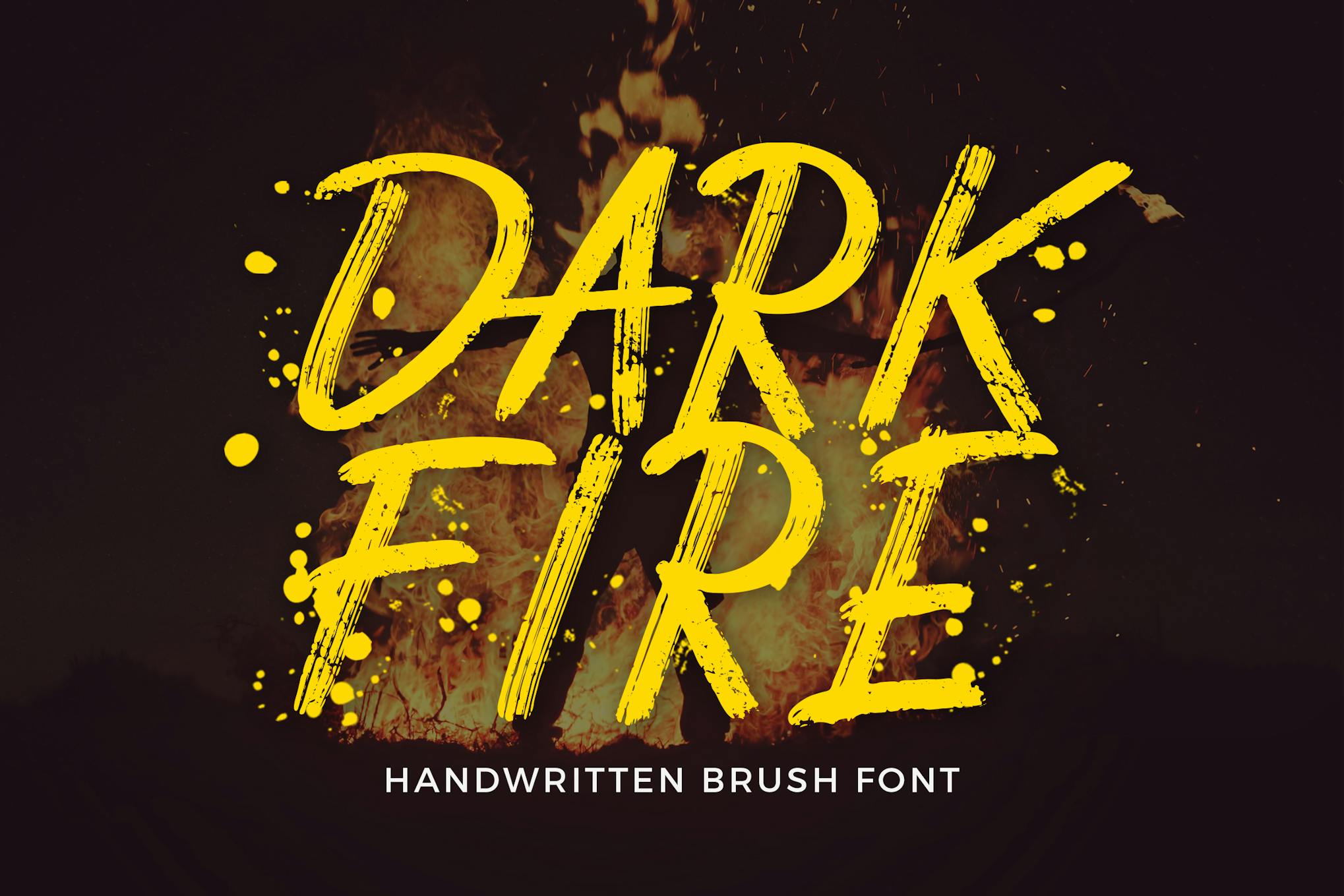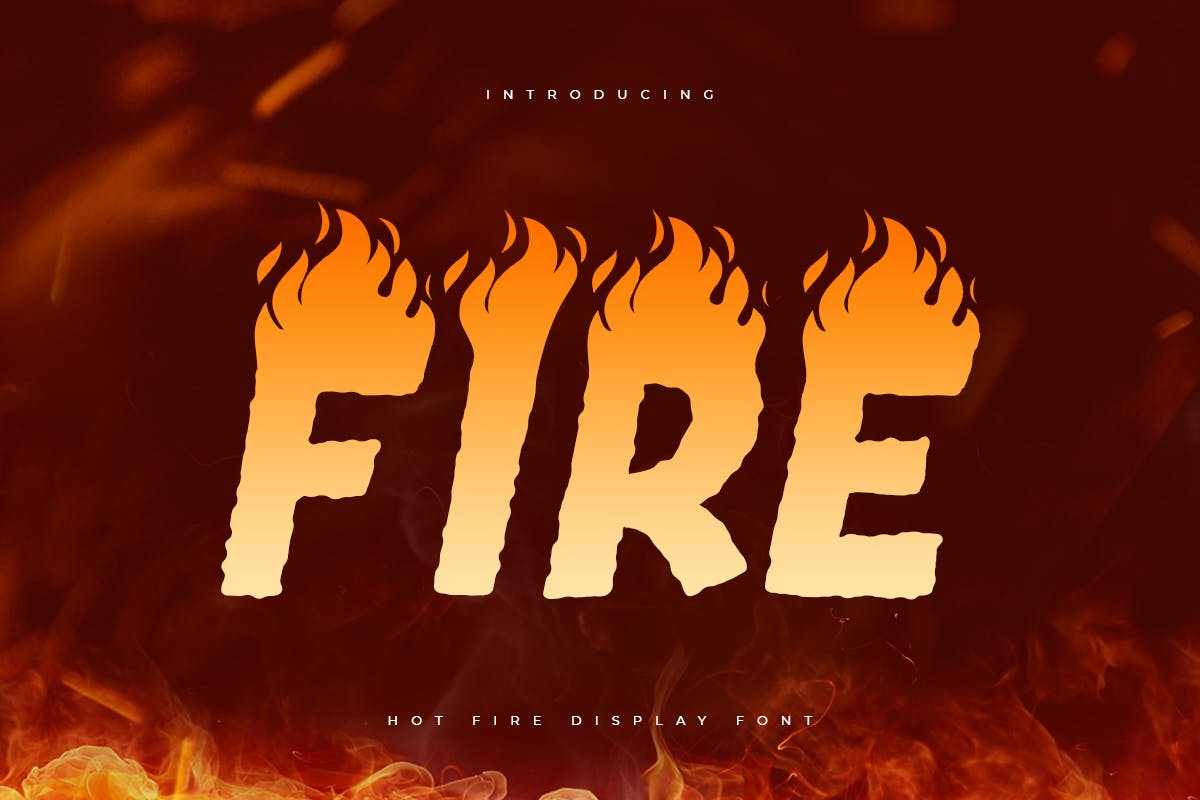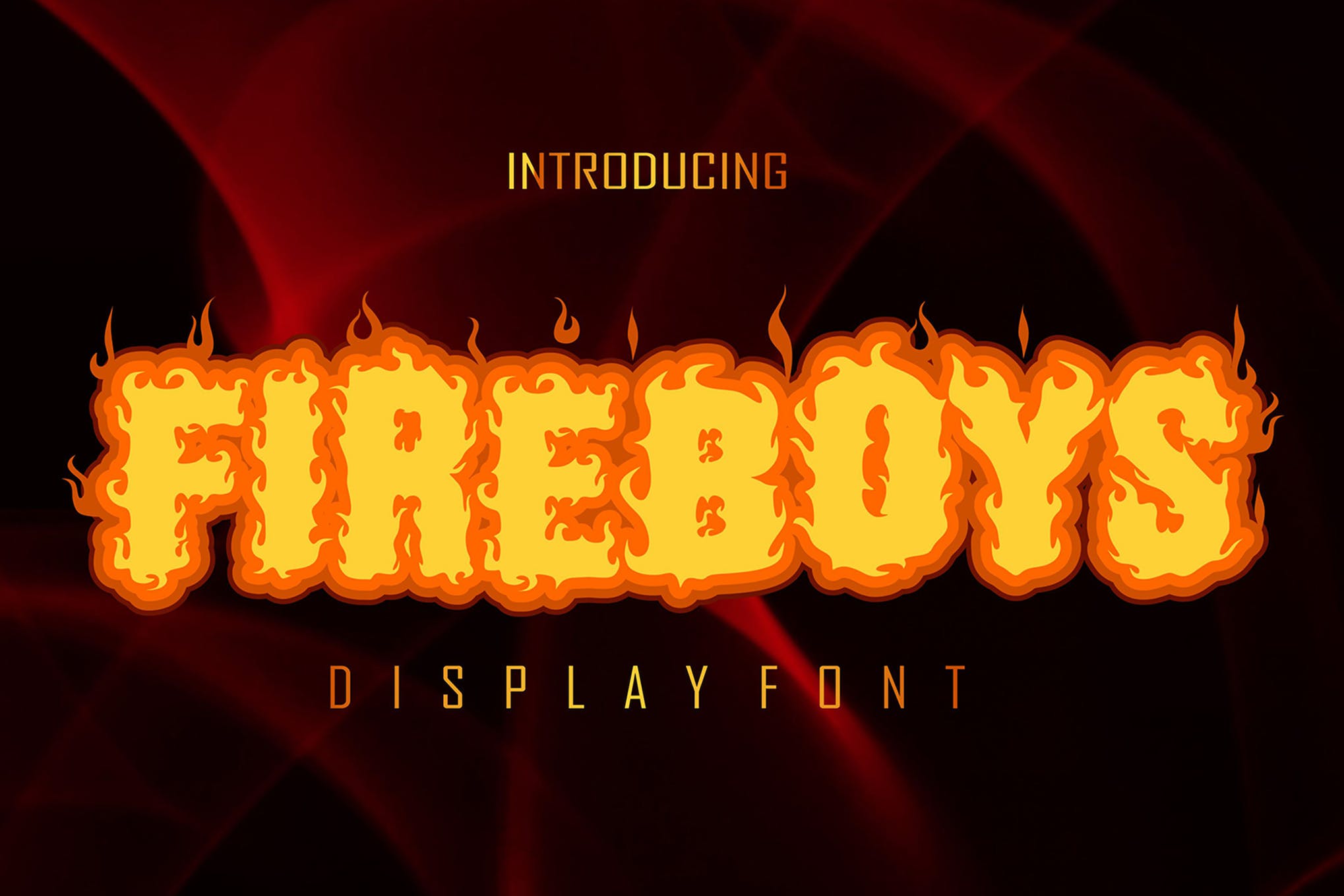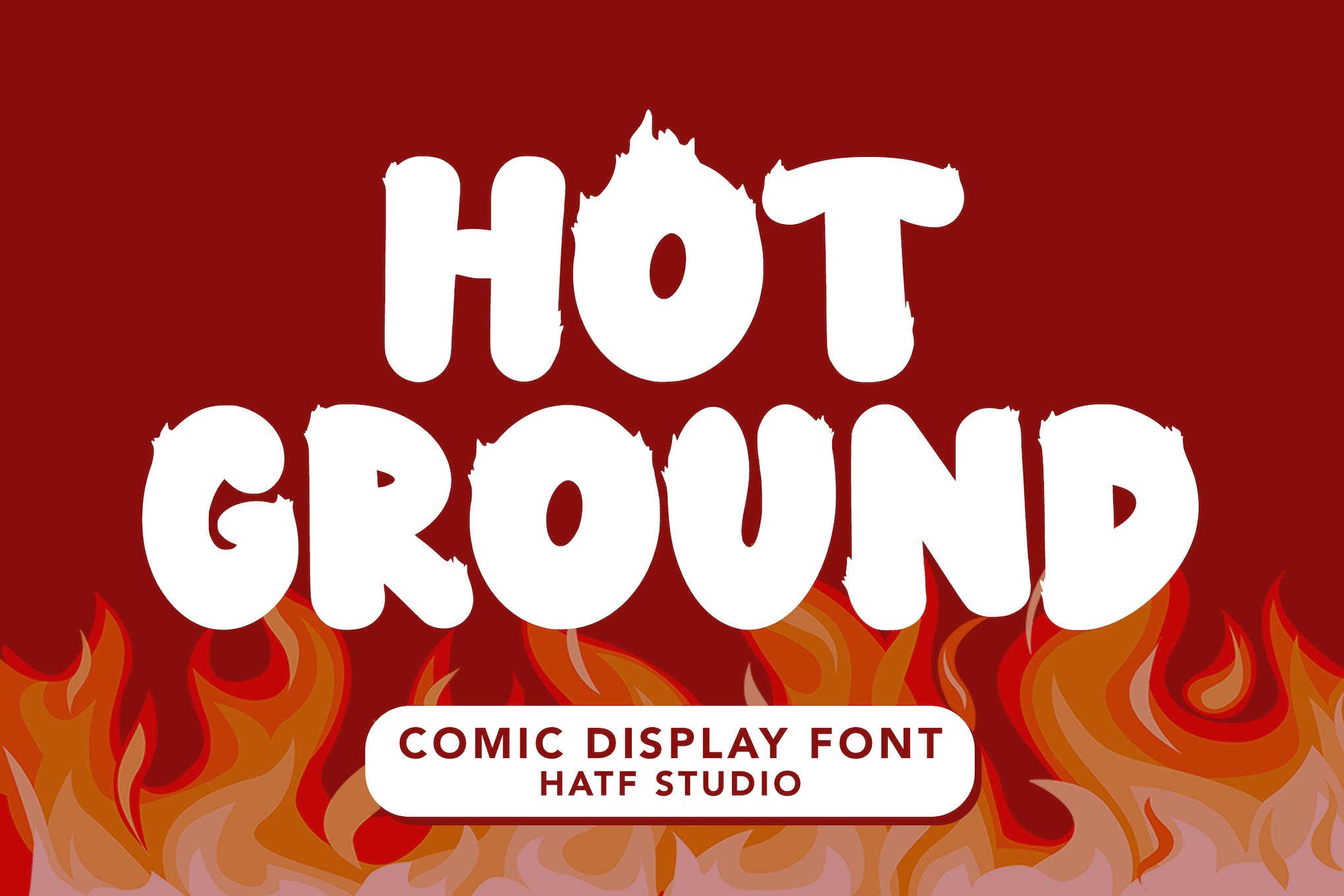
Tailored for those with a penchant for blazing designs, we’ve collected some of the hottest fonts out there, literally. These multi-use fire fonts, embellished with flames, fire and sparks, promise to set your projects ablaze.
In today’s graphic design realm, a carefully selected font goes beyond just words; it communicates tone and temperament. It’s time to incinerate typical norms and create an inferno of creativity with these fire-inspired fonts.
Be it a gig poster, a logo for an extreme sports brand or promotional material for a festival, these fonts will ensure your design stands out in a sea of conformity.
Experiment with the fiery and exciting options in store within this lineup, available both free and paid. So whether you’re a professional designer, a student or a hobbyist working on a project that needs a heat-packed punch, this list is your key to unlocking a smouldering and visually striking design.
Fire Ball Hot Display Font
Fire Ball Hot Display Font offers a unique burning effect, perfect for any hot-themed events or branding projects. It’s versatile and easy to manipulate, turning ordinary designs into unique shapes within seconds. The font is available in a range of formats (.otf, .ttf, .woff, .woff2) with both lowercase and uppercase characters. From logos, social media posts, to product packaging, Fire Ball Font is wonderfully legible and creative.
FlameOn Burning Typeface
FlameOn Burning Typeface is a uniquely crafted, fire-inspired font, meticulously detailed with a Wacom graphic tablet and Photoshop. Each letter is individually shaped, providing a distinctive, natural and rugged feel, ideal for automotive, horror and rough-style designs. The font includes specially created “^” and “*” characters for added zest. This creative asset comes in .otf file format.
Fireboys Hot Typeface
Fireboys Hot Typeface, a unique, fire-themed display and decorative font, is perfect to add dynamism to logos, clothing, branding, and more. Easy to use, this font instantly brings an edgy charm to any craft project without any need for drawing. The package includes various file formats like .ttf, .otf, and .woff, including both solid and outline versions of the font.
Bona Fire Font
Meet Bona Fire, a casually styled display brush font perfect for elevating your design projects. Ideal for adding flair to social media posts, image overlays, logos, and print needs, Bona Fire comes with a variety of features including uppercase and lowercase glyphs, numbers, symbols, punctuations, and special multilingual accents and glyphs. Available for download in Opentype and Truetype Font formats, Bona Fire can be a delightful addition to your creative toolkit.
Dragon Fire Display Font
The Dragon Fire Display Font is a versatile serif typeface, ideal for e-sport logos, film posters, games, sports, and various other projects. The package includes TTF and OTF font formats, PUA encoded characters, and doesn’t require extra design software. It has simple installation procedures, and supports a range of languages including English, Dutch, Spanish, German, Indonesian, and more.
Dark Fire Brush Script
Dark Fire Brush Script is a unique, handwritten font with a brushed style, offering an authentic touch for your creative projects. From branding and logos, to social media posts and product packaging; its versatility covers all bases. The package includes OTF, TTF, and WOFF formats, works on both PC & Mac, and promises a simple installation process.
Fire Hell Metal Font
Recommended for fans of heavy music genres, Fire Hell is a dynamic, fiery font, drawing inspiration from the fervor of death metal. The letters seem to be ablaze, with flames encapsulated within their sharp, angular design. This font, complete with all caps, punctuation, numbers, and special characters in OTF, TTF, and WOFF formats, is an edgy and fierce choice for bands looking for an impactful typography.
Fire Ace Fiery Display
Featuring a heated design, Fire Ace is a fiery display font with an exciting, risky vibe. Ideal for adding a spicy touch to brands, igniting racing burnout effects, or even sprucing up food descriptions. Fire Ace boasts uppercase, smallcaps, symbols & punctuation, numerals, ligature, alternate, and multilingual support. This asset is available in OTF, TTF, WOFF, and WOFF2 formats.
Midwinter Fire Gothic Font
Drawing from gothic cathedrals, ancient myths and eerie campfire stories, Midwinter Fire Gothic Font is an all-caps, versatile serif font perfect for a chilling, decorative look. Despite its ornamental style, the font remains legible, even in smaller sizes. It comes with a range of alternative characters, underlines, numerals, and punctuation, great for enhancing book covers, movie titles, and more. Available in OTF, TTF, and WOFF formats.
Vaguard Hot Typeface
The Vaguard Hot Typeface is a striking display and decorative font that ignites creativity. Its fiery appearance is perfect for logos, apparel design, branding and more, providing a unique feel that adds a charming touch to any craft projects. With features like uppercase, lowercase, numerals, punctuation, and different file types, the Vaguard font is both easy to use and versatile.